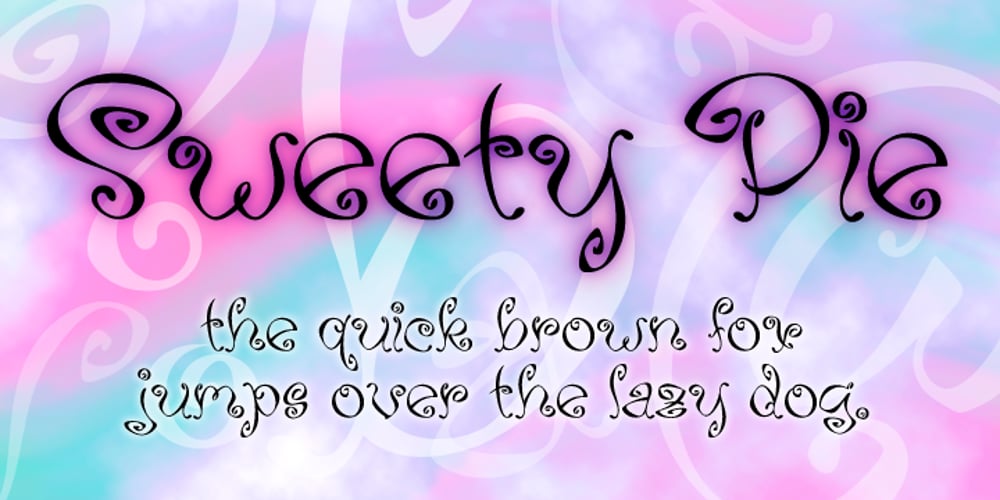
Sweety Pie Font Family was designed by Phillip LePine and published by LePine Studios. Sweety Pie contains 1 styles and family package options. Originally designed as a companion font to a series of illustrations by Phillip LePine, this font stands beautifully on its own. Featuring letterforms with curls and varied line weight, it captures a feeling of the carefree days of our youth.